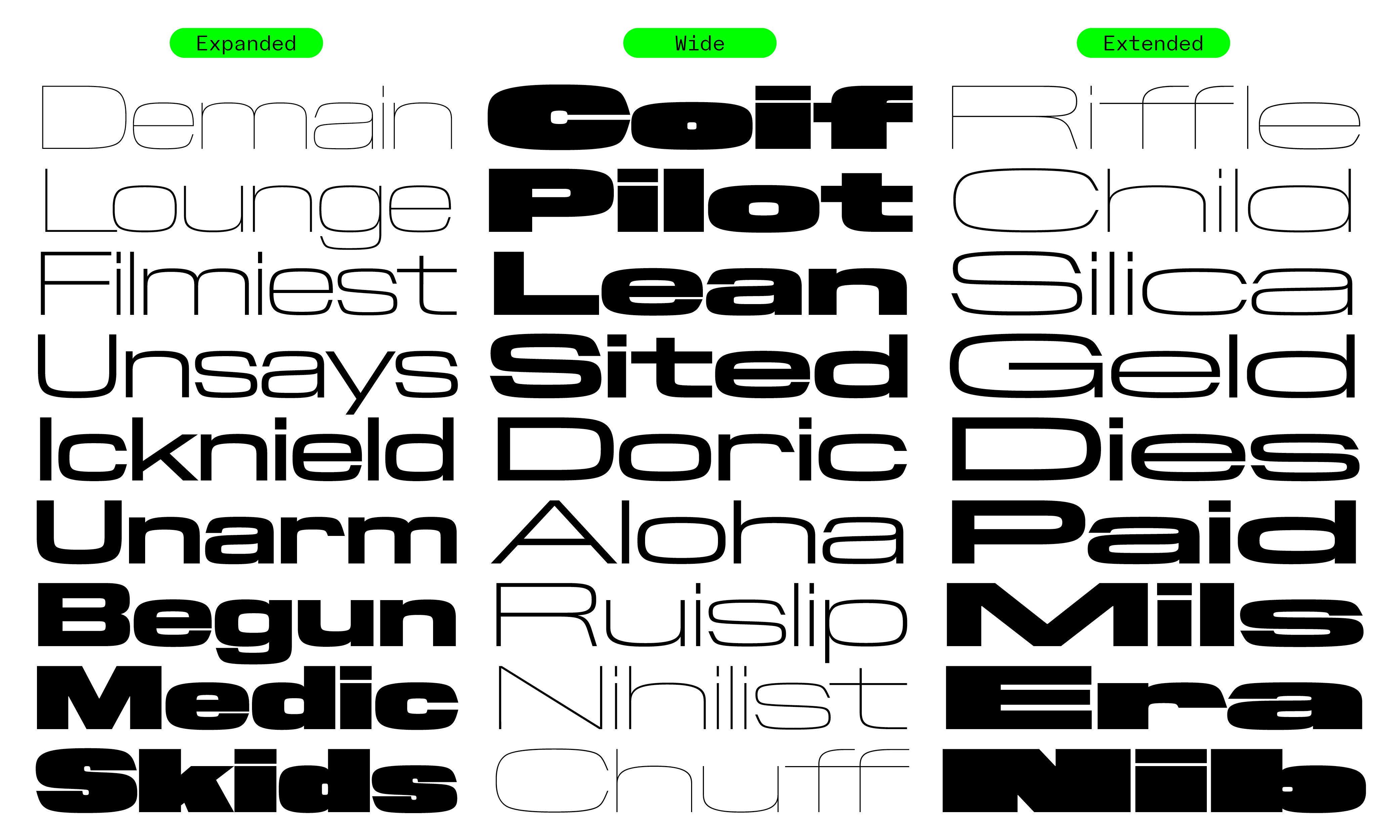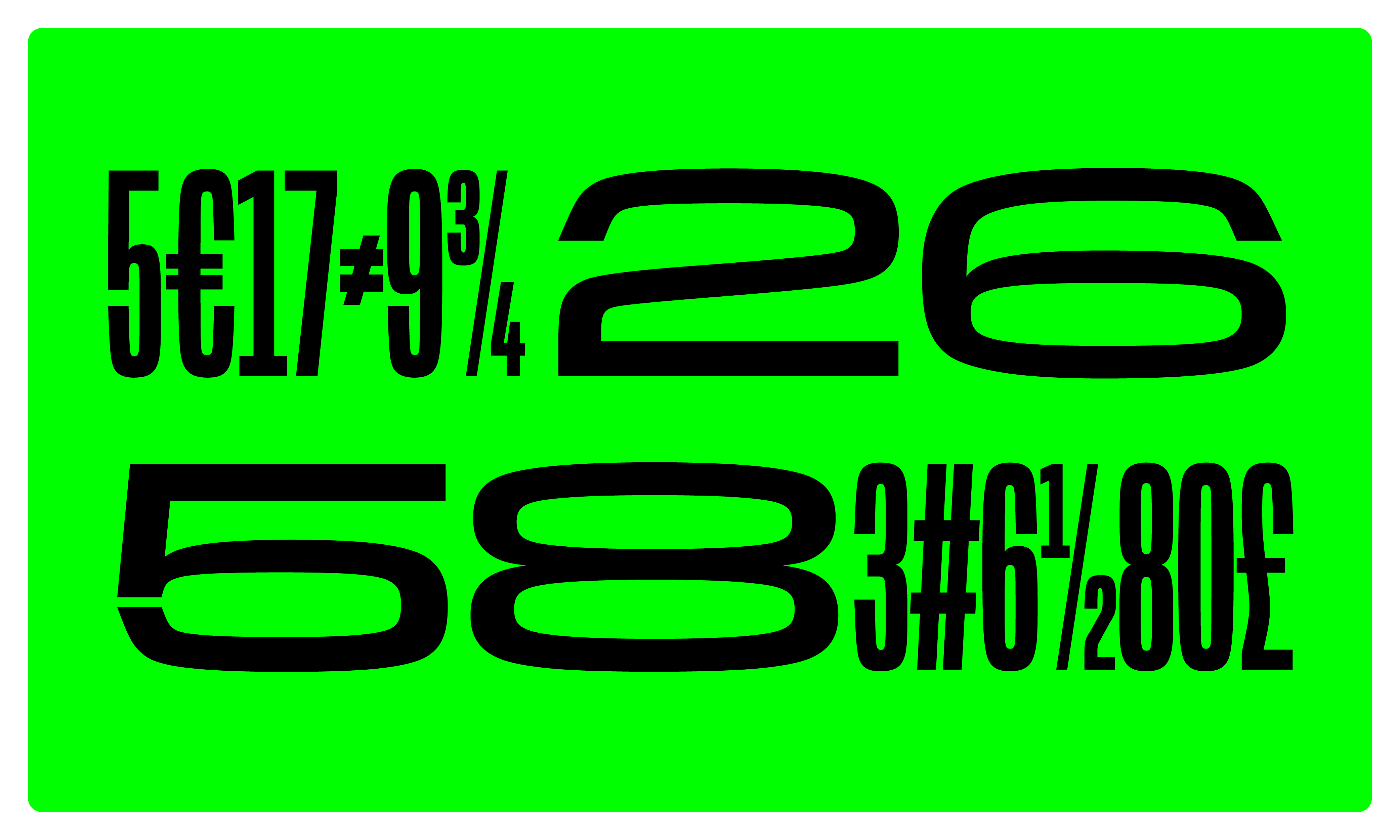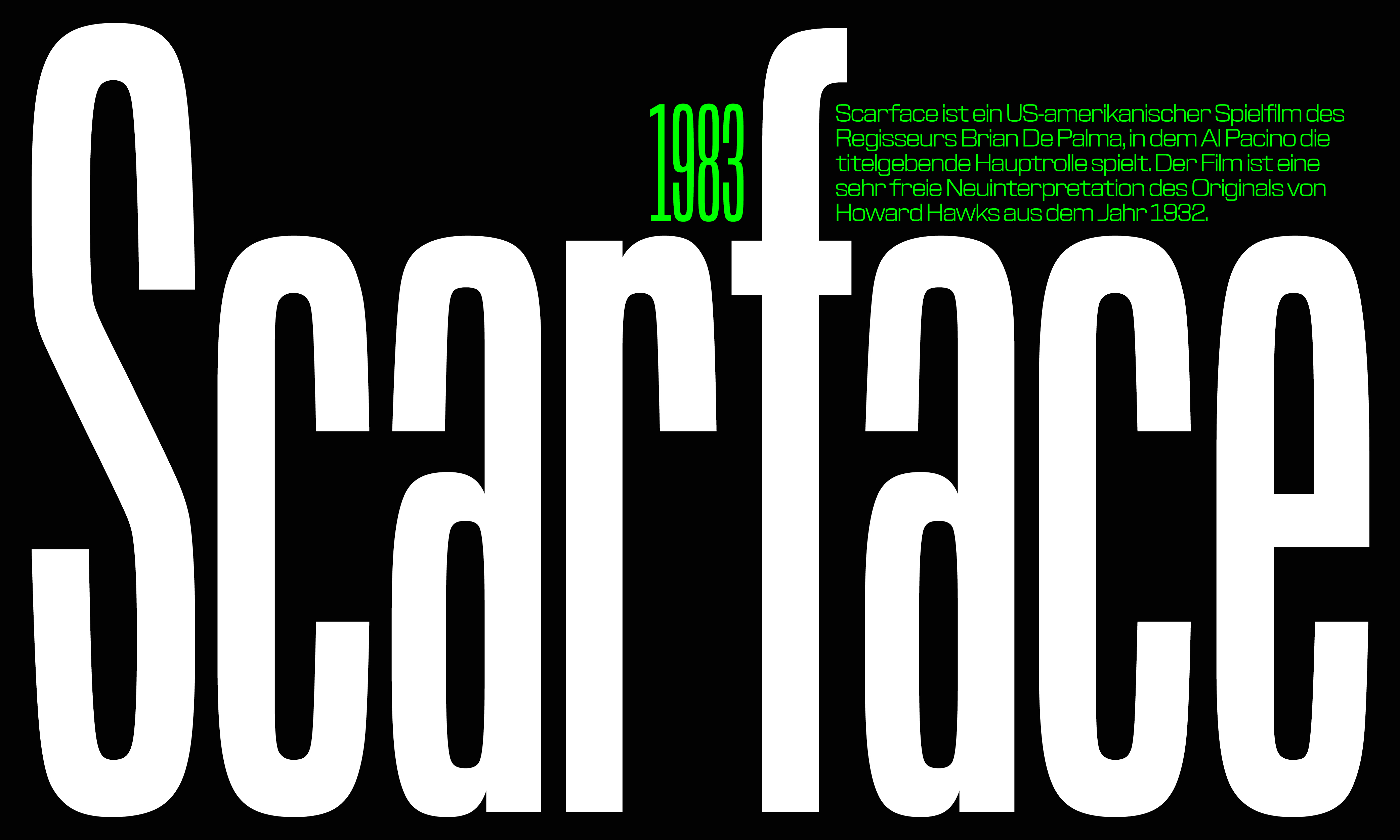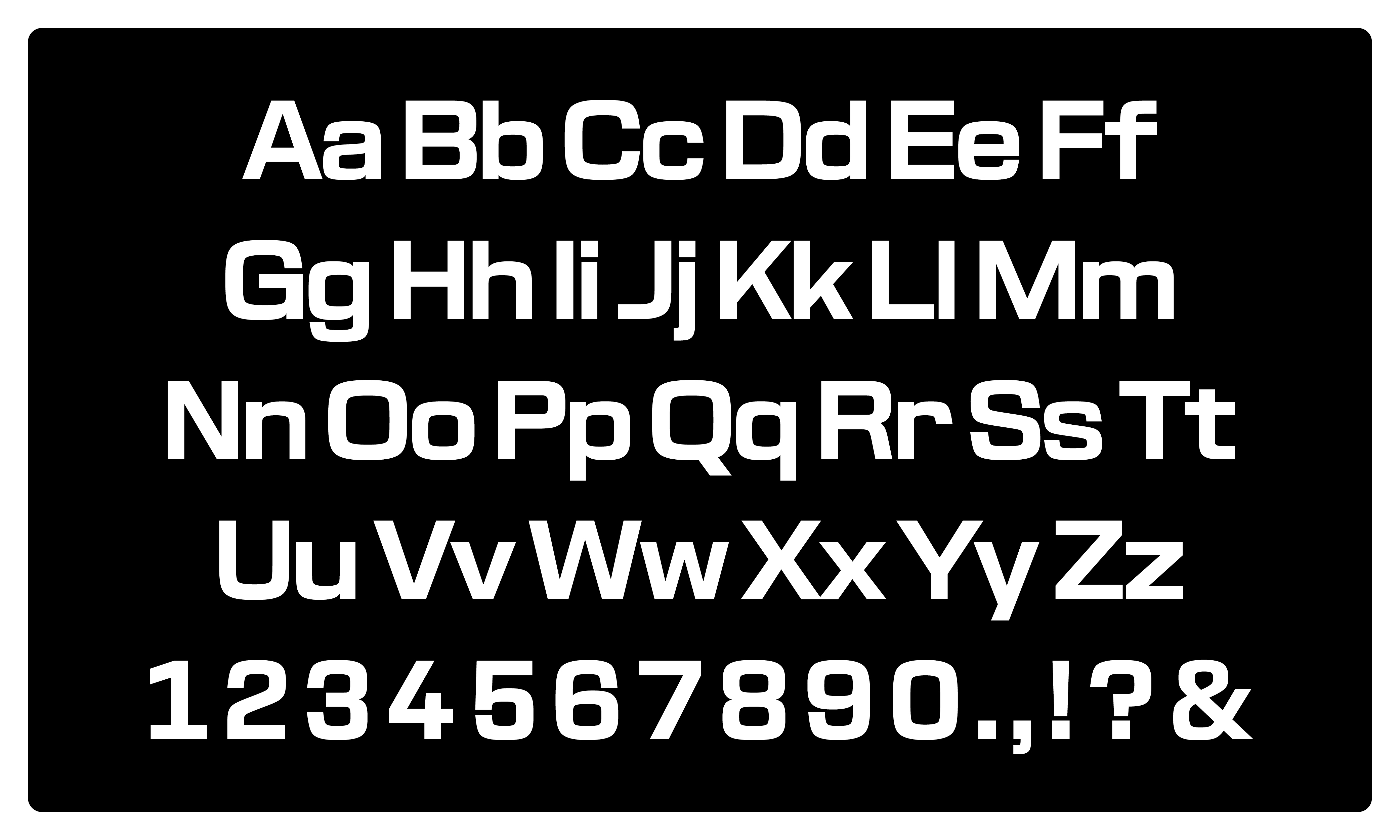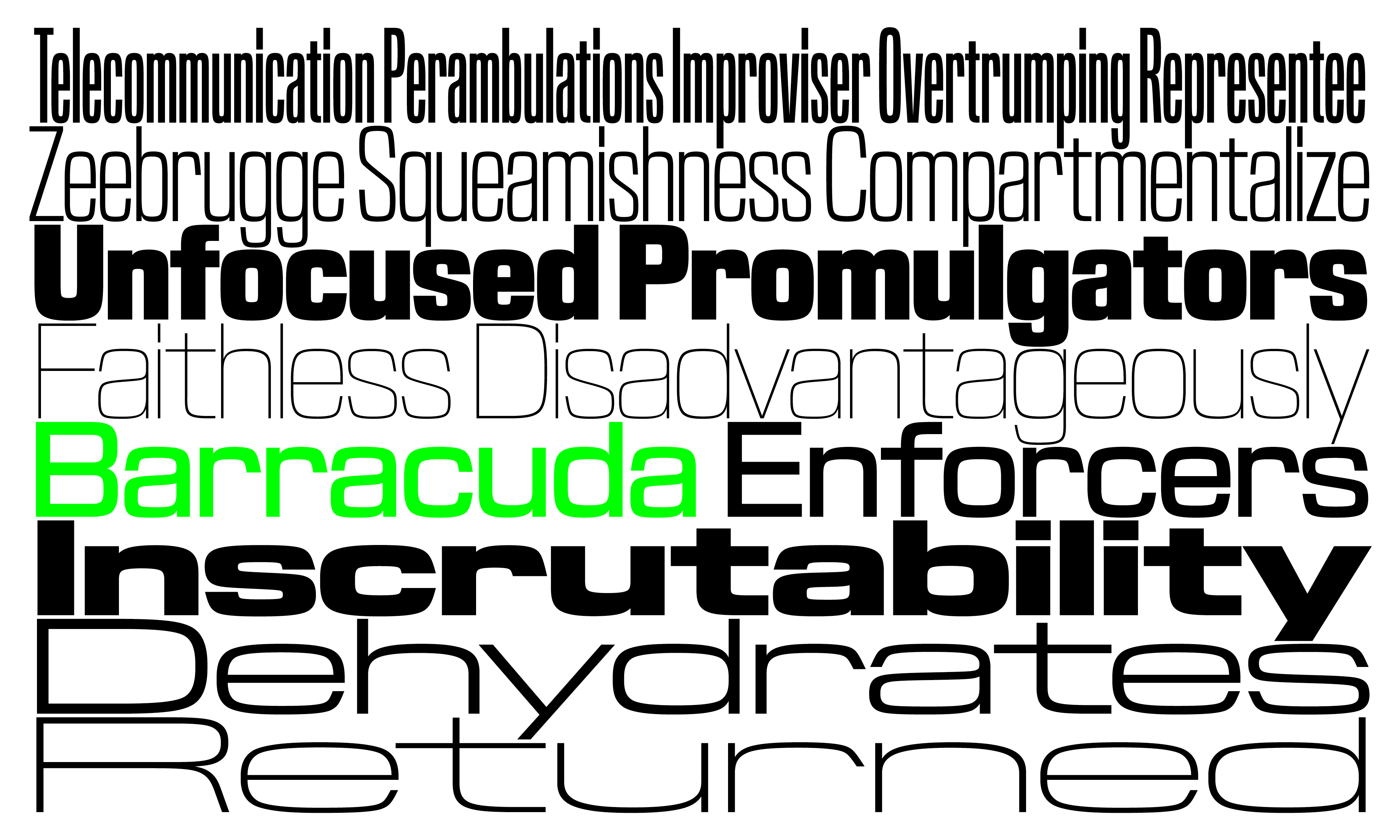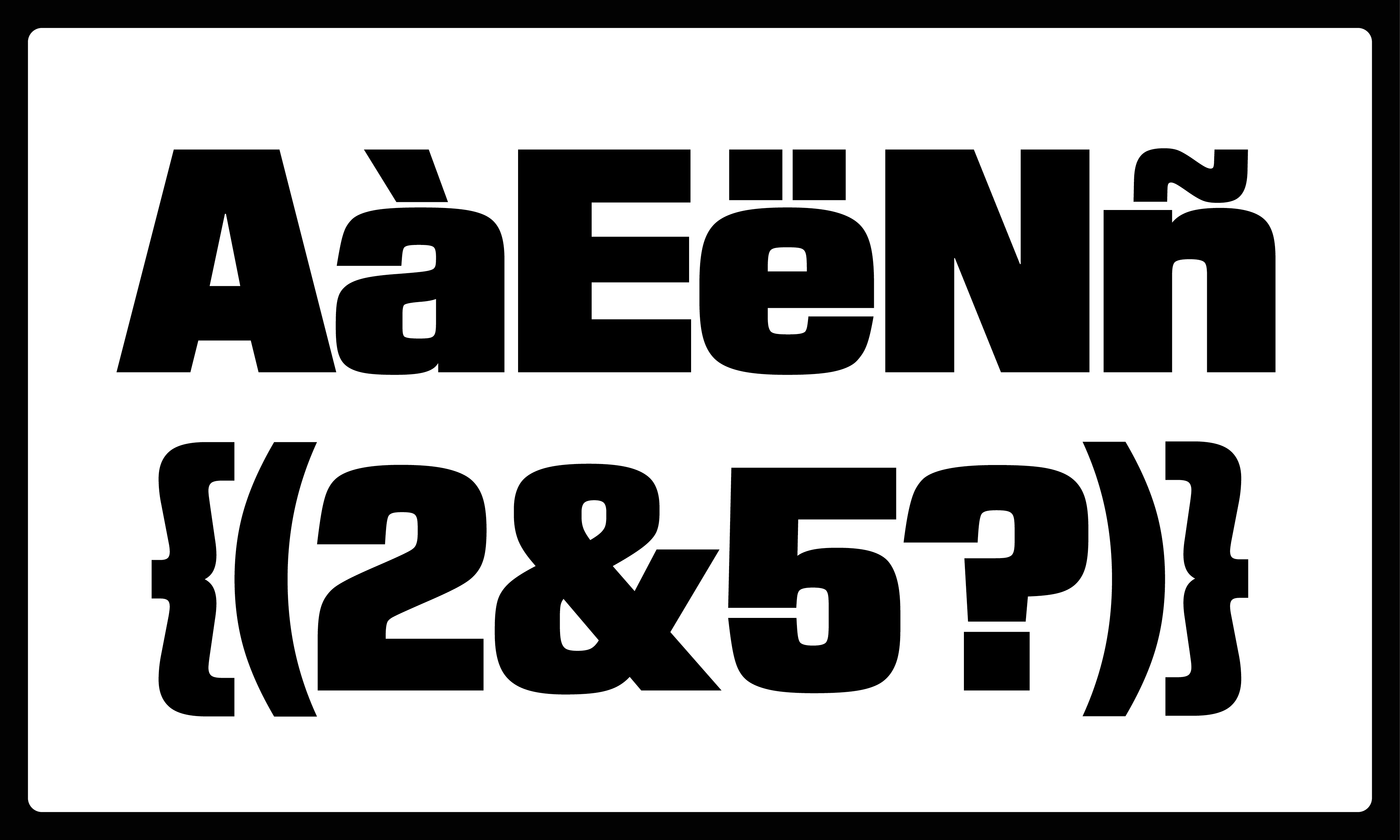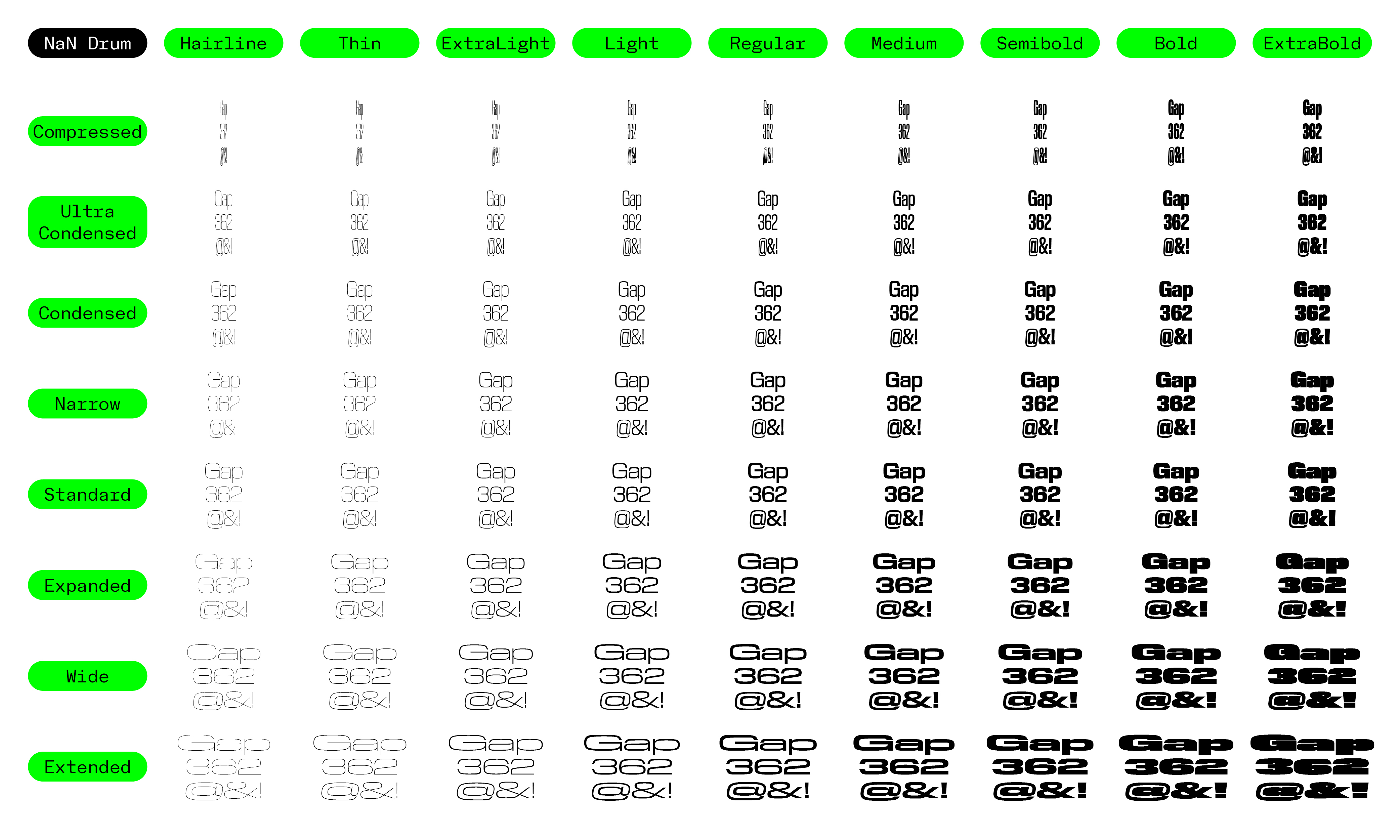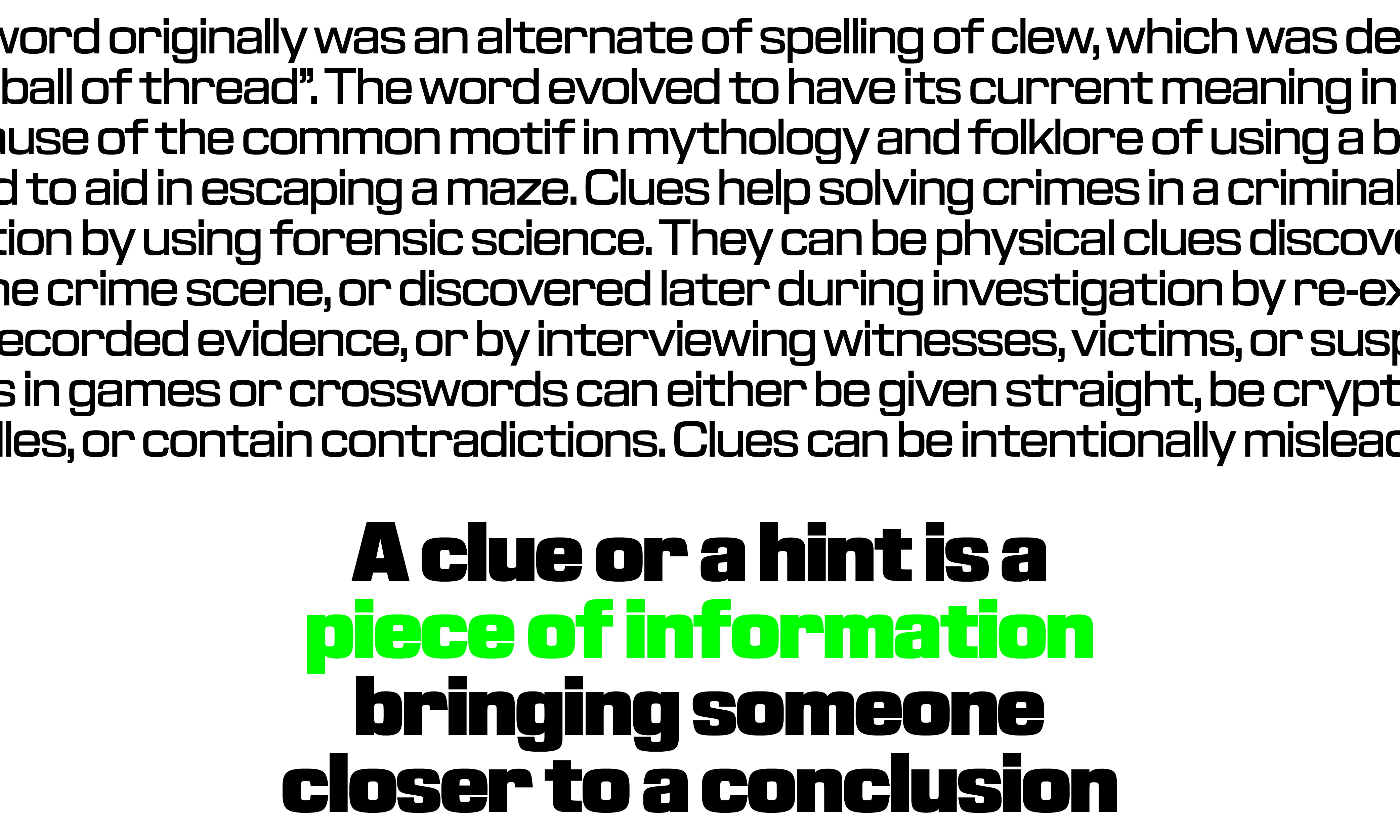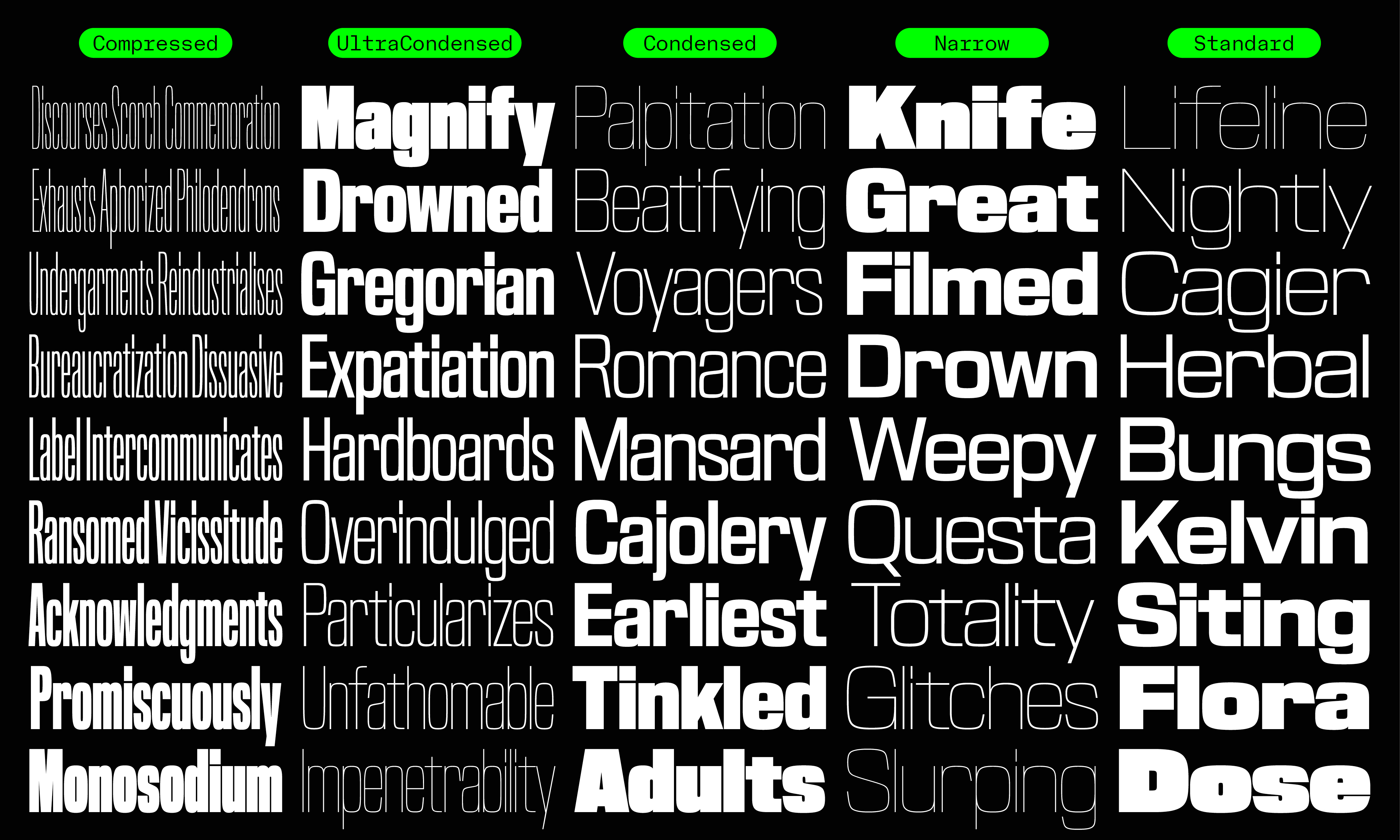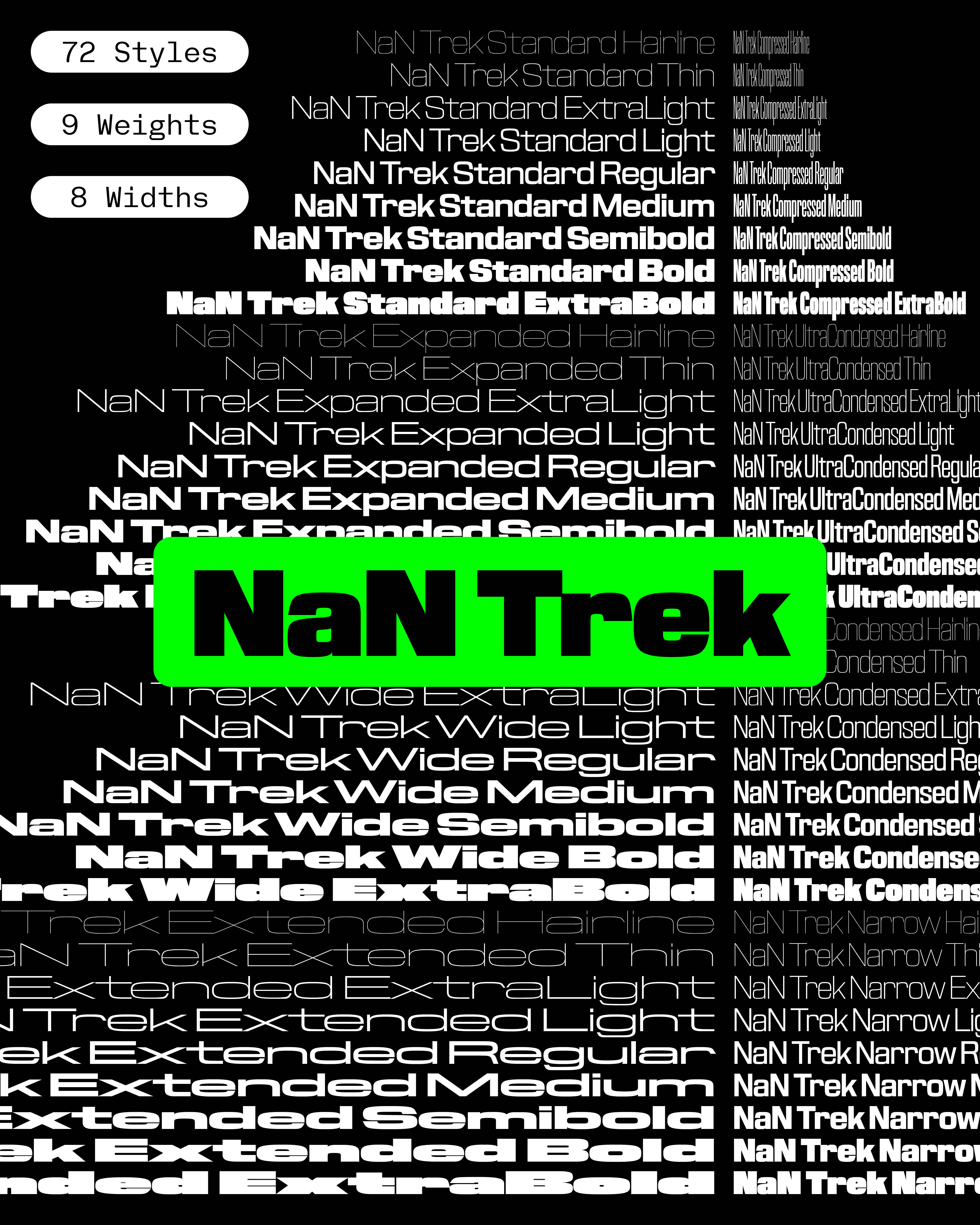
NaN Trek Narrow
NaN Trek, the retro-futuristic sans serif with a healthy dose of early 2000's techno label inspiration. Big boom boom from thin compressed to wide heavy.
NaN Trek OpenType Features
- Fractions (on) (off) 13/57
- Ordinals (on) (off) 1o 2a
- Proportional Figures (on) (off) 0123456789
- Scientific Inferiors (on) (off) 0123456789
- Subscript (on) (off) abc123
- Superscript (on) (off) abc123
- Tabular Figures (on) (off) 0123456789
NaN Trek family